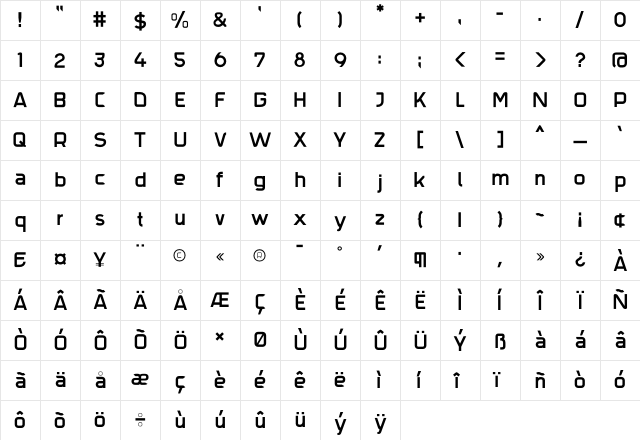
Complete Trak SemiBold glyph index. Displaying only characters natively supported by Trak SemiBold font.
Trak is a composed and adaptable typeface that performs quietly and consistently across a wide range of design contexts. Its bold stroke weight gives it real presence on the page.